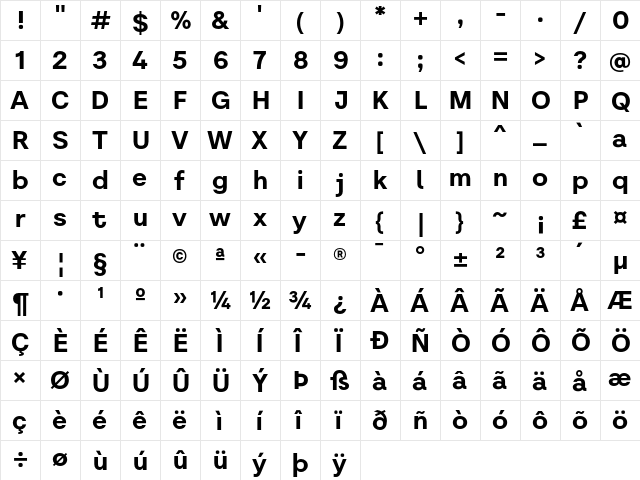
Literal Bold
| Foundry | Igor Kosinsky |
| Designer | Igor Kosinsky |
Design Context for Literal Typeface
Literal offers clean, dependable letterforms without strong stylistic allegiance, making it a practical choice for designers who need flexibility. Its bold stroke weight gives it real presence on the page.
Pro Tip: Pair Literal with a font of contrasting weight or personality to build a more expressive typographic hierarchy.